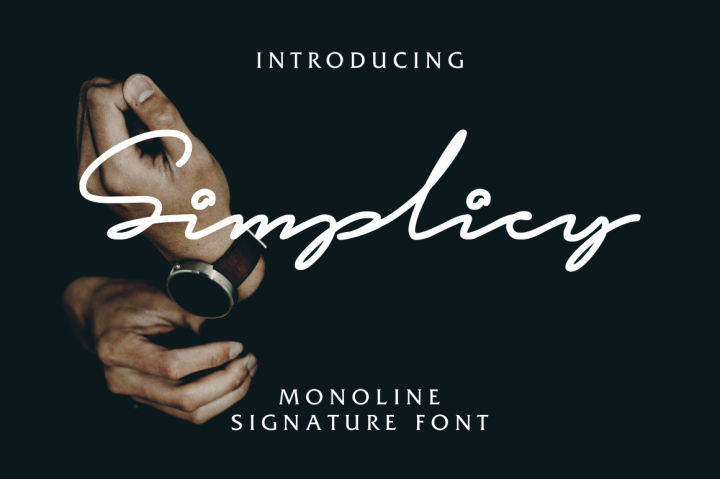
Simplicy Signature Font
Simplicy – is a hand-made handwritten font with a natural, professional look. Works perfectly for logos, fashion, stationery, letterpress, magazines, menus, books, invitations, wedding / greeting cards, packaging, labels, apparel, marketing etc.